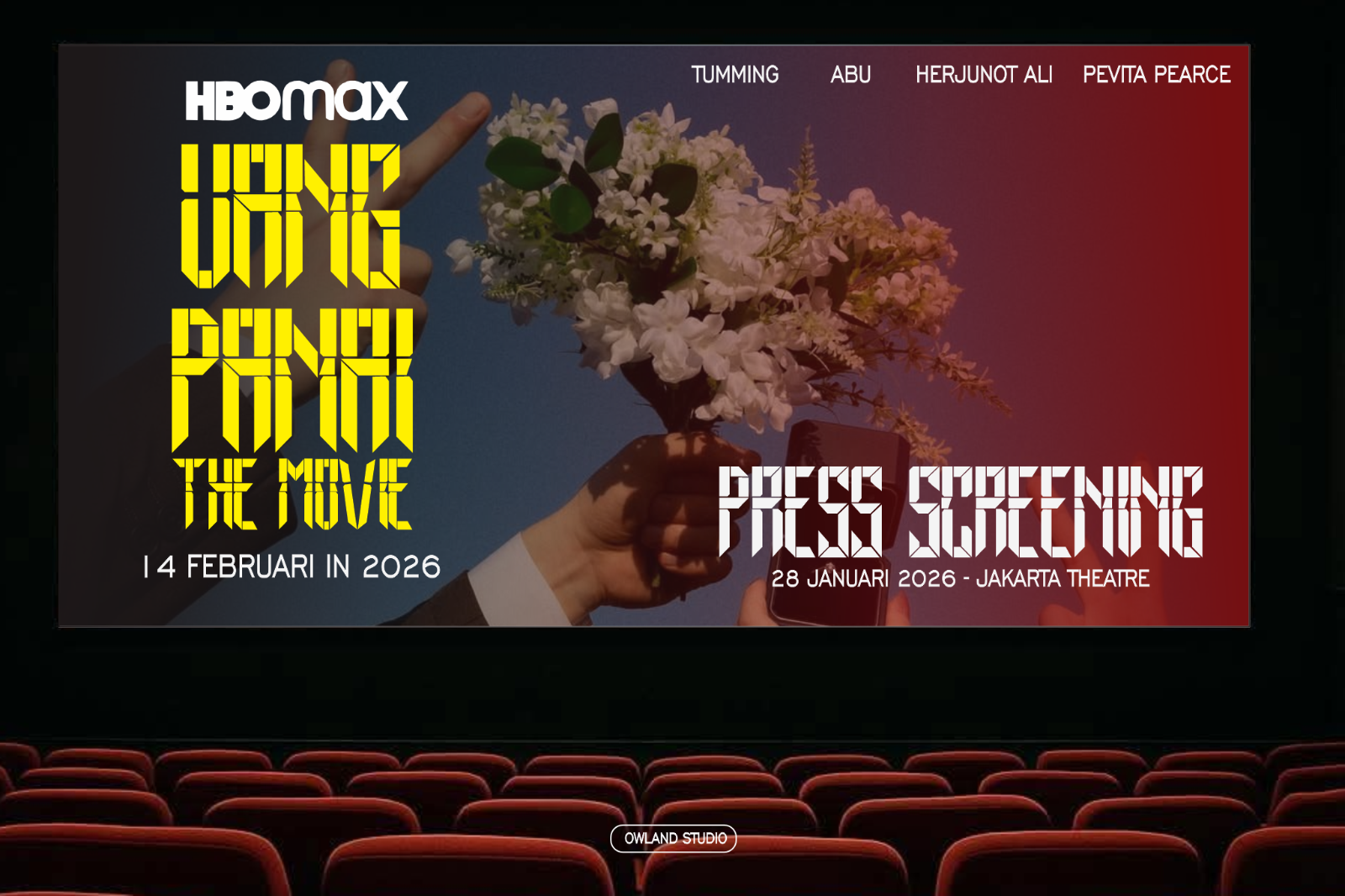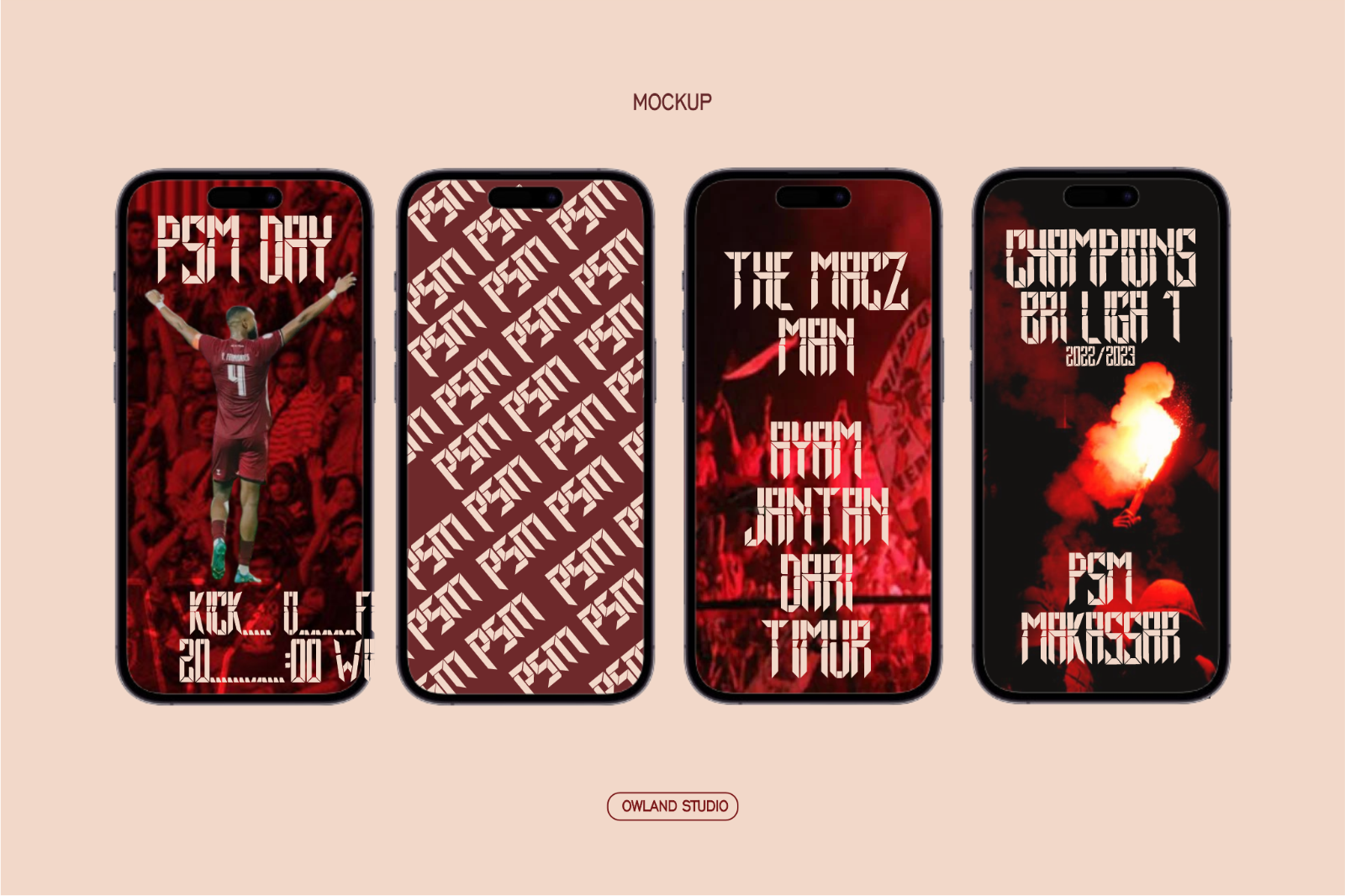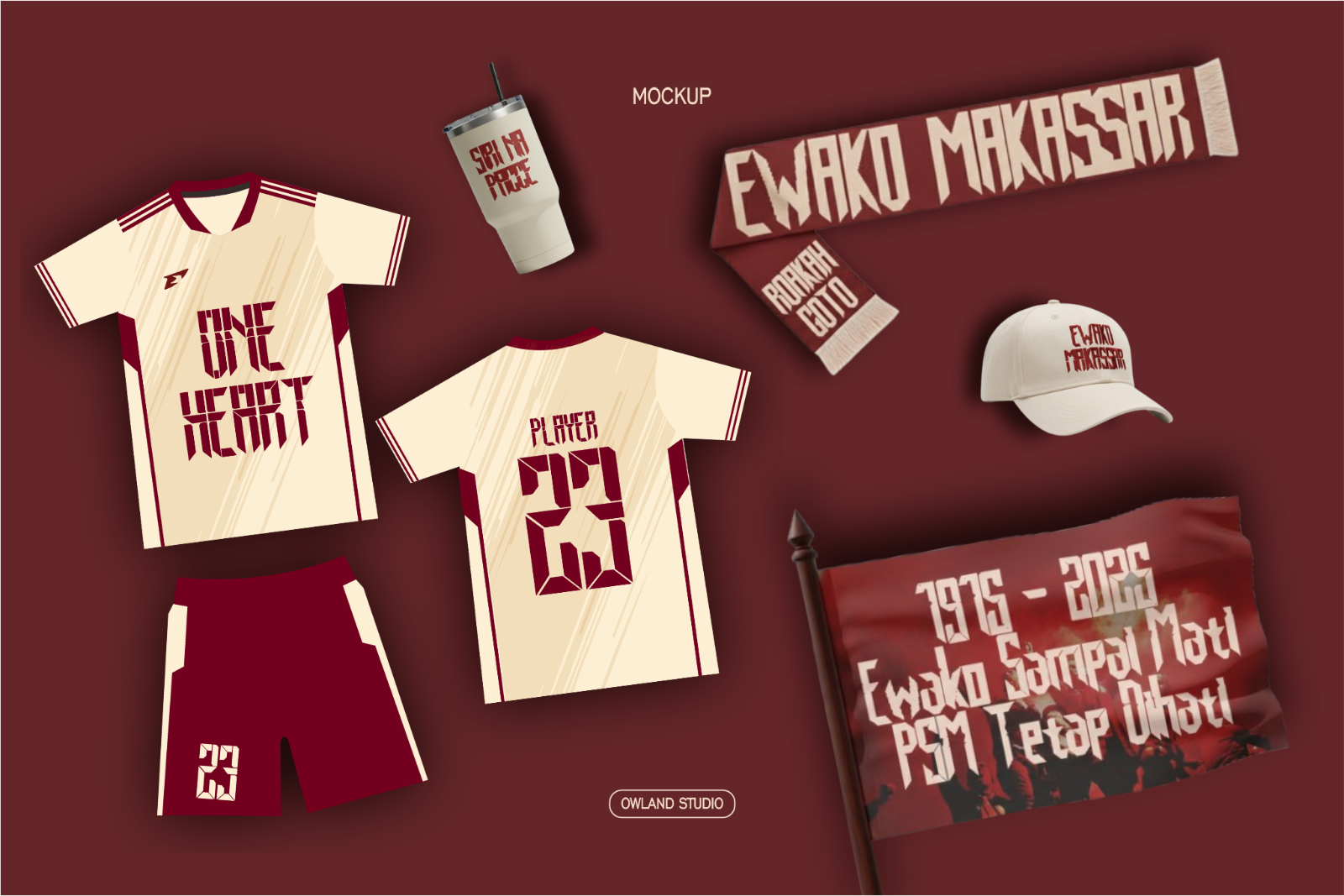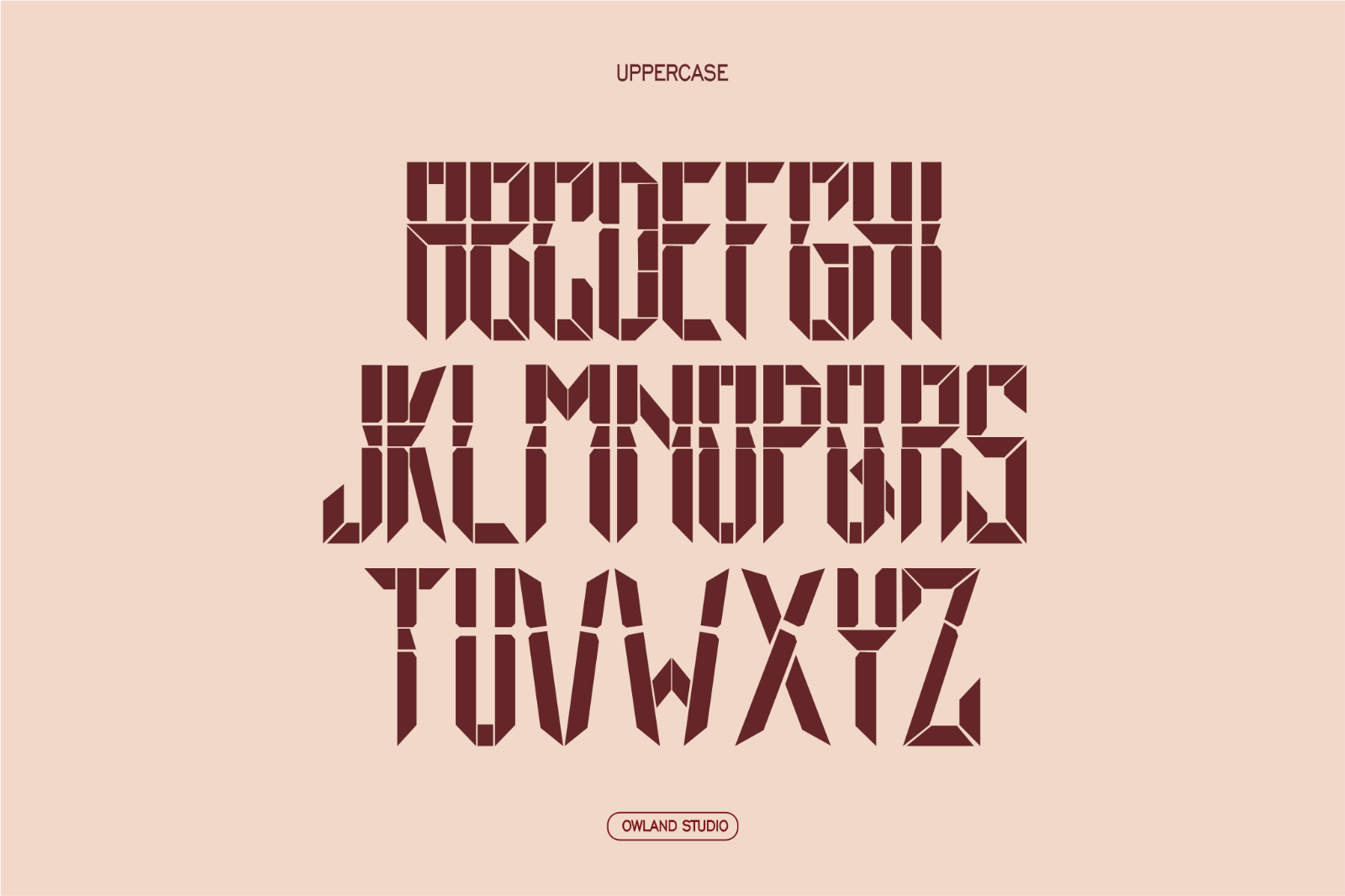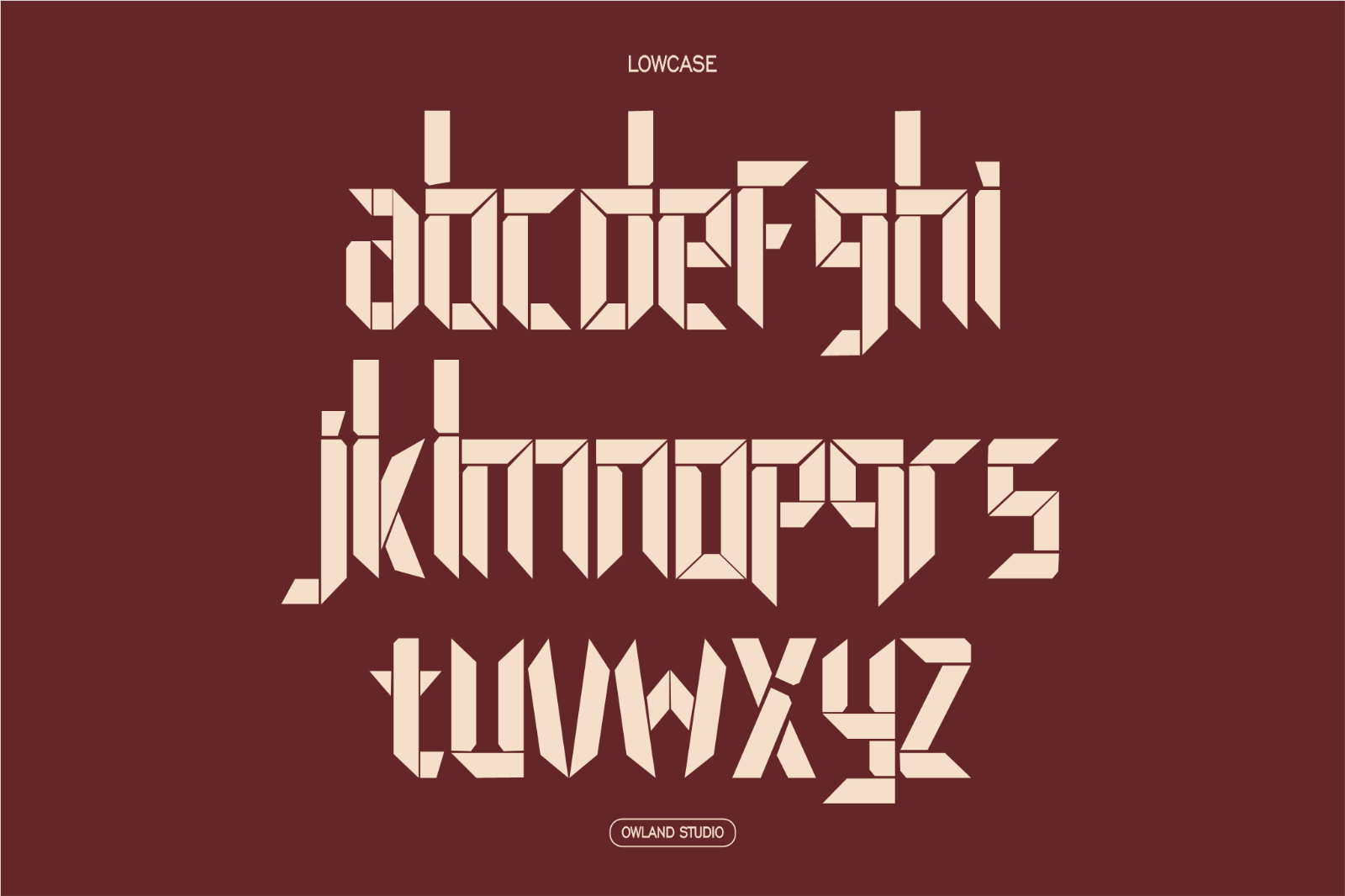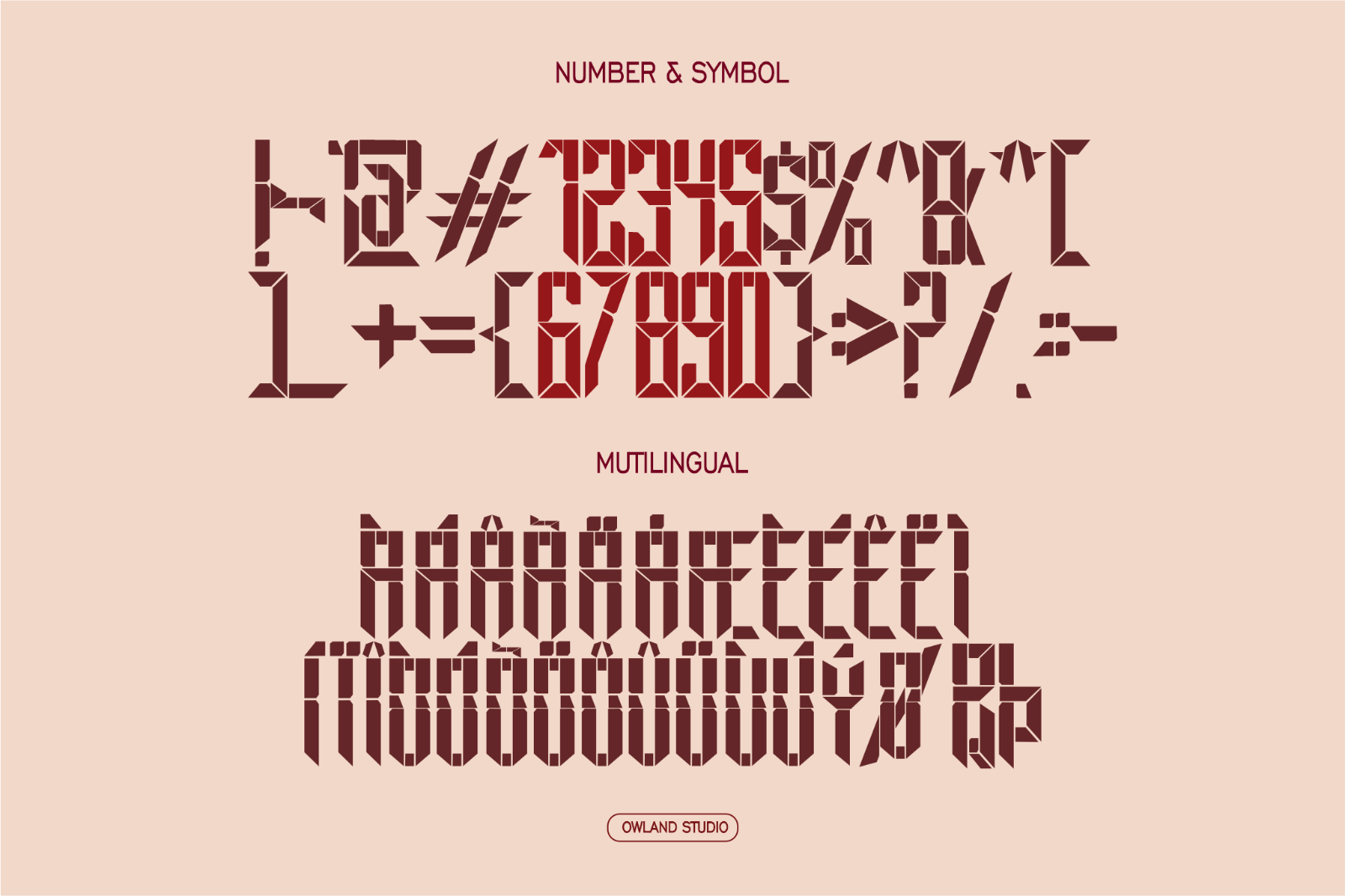
This FONT is inspired by my hometown, army style, stencil and old school which makes it look sharp, firm and charismatic from this city, there are several mock ups that can be used on this font from flags, jerseys, tumblers, hats, scarves, naming tourist attractions, unique social media stories, film promotions and city slogans that make it charismatic with the deep culture of this city.
in this font there are uppercase and lowercase letters, numbers, symbols and multilingual. The combination of red and cream describes the characteristics of the hero Sultan Hasanuddin who is so thick with toughness and courage.
Meet Ewako Makassar—a bold, bold display typeface with style! Designed to make a statement. Whether you're creating posters, merchandise, or anything else you want to stand out from the crowd.
Ewako Makassar delivers boldness with a minimalist touch. From clean cuts to sharp curves, it's all the touch you need to enhance your designs.